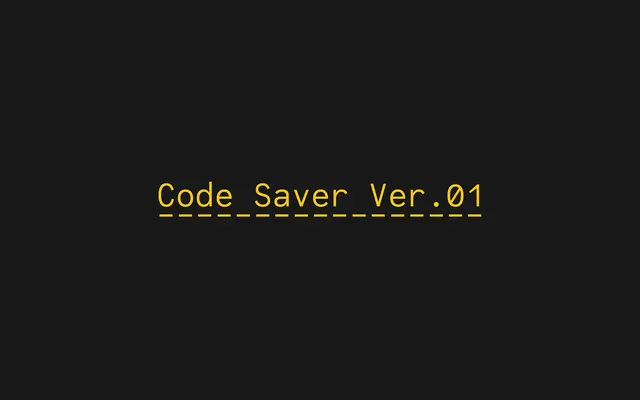
Code Saver specimen from Dharma Type
A condensed monospaced family from Dharma Type built for code editors and tabular data, available in three weights with matching 11-degree italics.
Drawn at 93.33% of standard width, it fits more characters per line than a typical monospaced font without sacrificing legibility in numerals and punctuation. The six styles cover Regular, Medium and Bold with paired italics, available in both OpenType and TrueType formats. The aesthetic is clean and unobtrusive, aimed at developers who want something fresher than the usual coding font staples.
Explicitly designed for coding and tabular layouts with a fixed-pitch design; the condensed width and programming-environment focus place it firmly in the monospaced category.